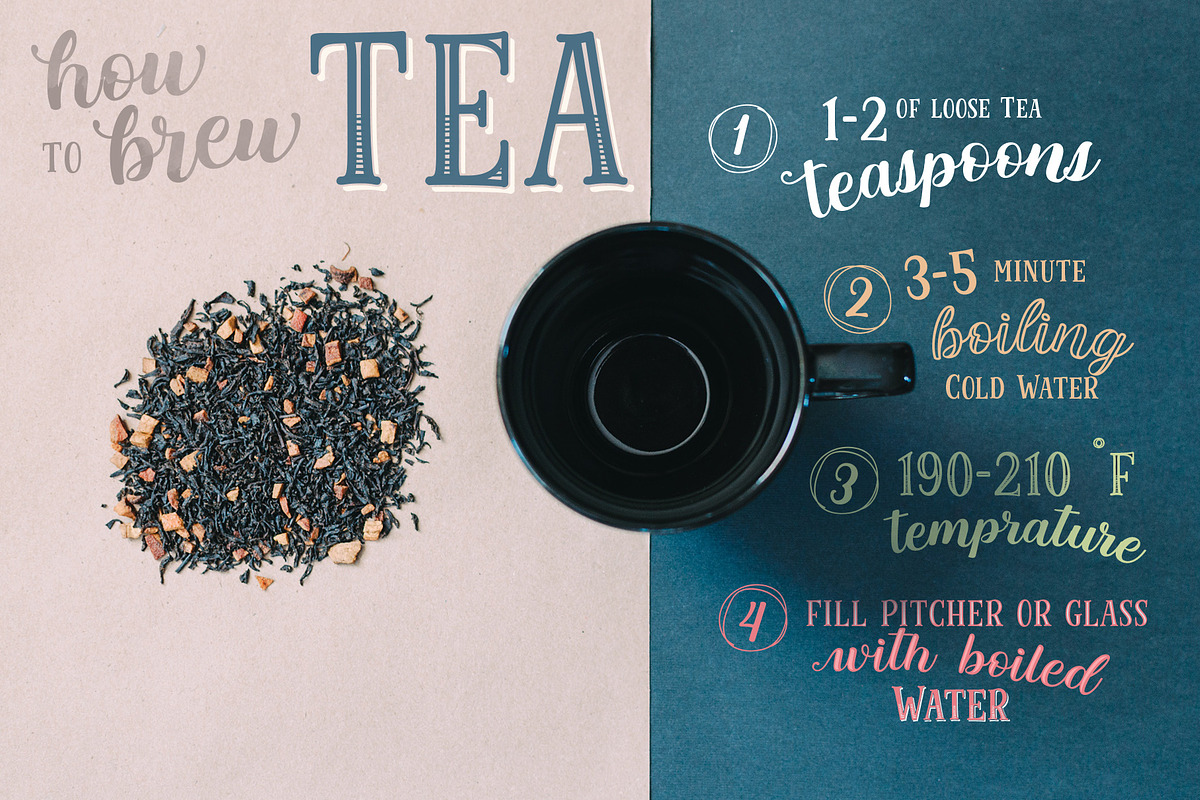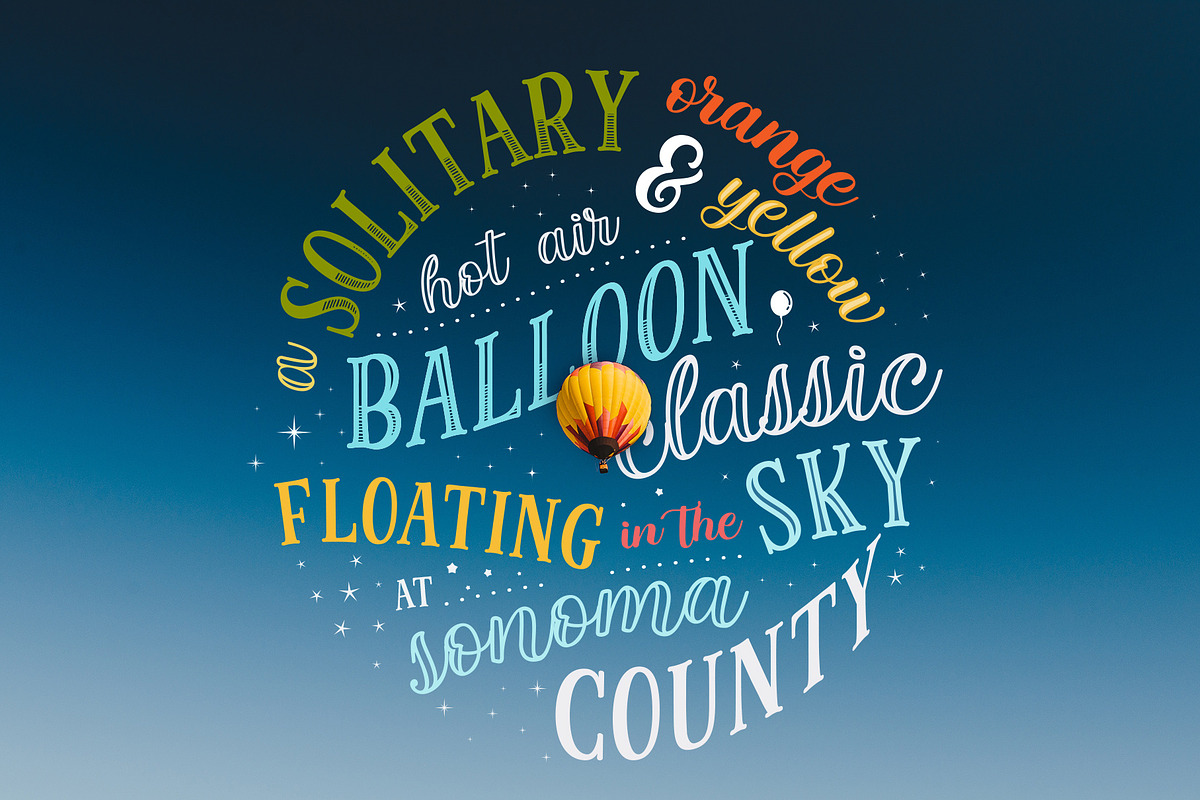
Cinnamon Peaches
Cinnamon Peach - Layered Font
After 2 years of learning how to create a fonts, learn about the anatomy of typography, features of the OpenType fonts, and all of the experience on my collaborations with many friends, Finally I just launched my first personal product with the name Cinnamon Peach.
Cinnamon Peach is beauty combinations of layered font. It has a Serif and Script style inside. Both of them are layered font, which is you can express the style on both of it. You can add shadow, inline or hatch on Serif style. Changing the color of the other layer as just easy as change standard color of the fonts but it’s more deep in detail. On the Script style, I give you more freedom of choosing which style do you want, if you want a deep style of layer, you can choose regular and inside with different color. but if you want the outline style, it also available as a single fonts.
Looks like on the display that I Created, You can see the most of combinations font in there are perfectly matched even on script version doesn’t include the Uppercase character. Because of the strong characteristic of this fonts you can see the combinations are great with or without layer, monochrome or multi color, pastel or watercolor. It’s great for posters, display, logos, header website, magazine, animation text, etc.
Cinnamon Peach include :
Cinnamon Peach Serif Regular (Base)
Cinnamon Peach Shadow
Cinnamon Peach Hatch
Cinnamon Peach Inline
Cinnamon Peach Script Regular (Base)
Cinnamon Peach Script Inner
Cinnamon Peach Script Outline